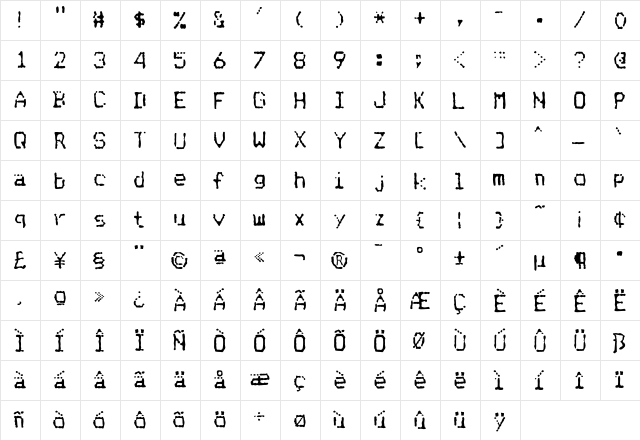
MatrixDot Regular
Design Context for MatrixDot Typeface
MatrixDot is rooted in pixel-grid construction, making it a natural fit for game UI, retro computing aesthetics, and digital nostalgia projects.
Well-suited to indie game interfaces, retro computing aesthetics, and pixel art-adjacent design work.
Pro Tip: Use MatrixDot at sizes that align with its pixel grid for the sharpest rendering — scaling to non-integer multiples can introduce unwanted blur.